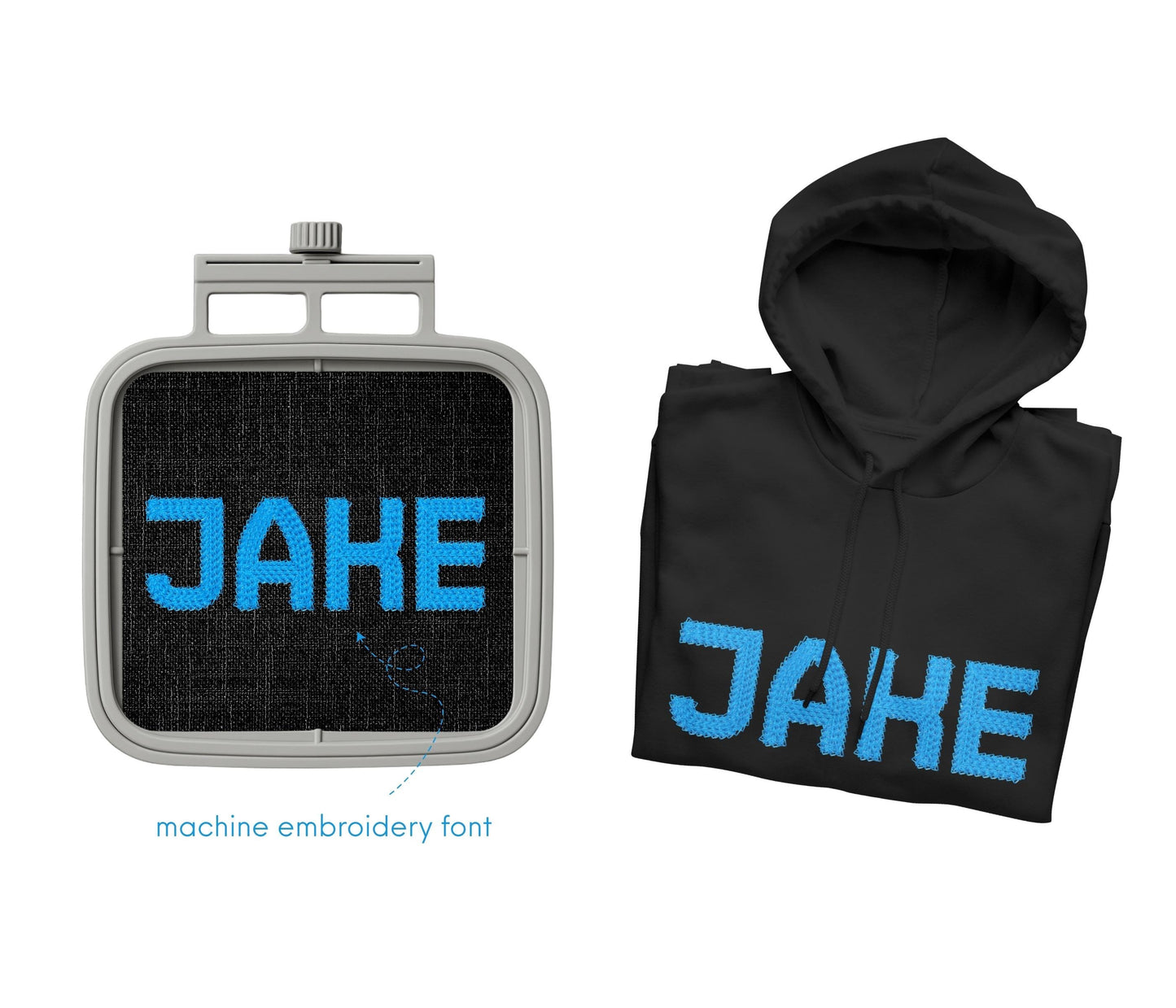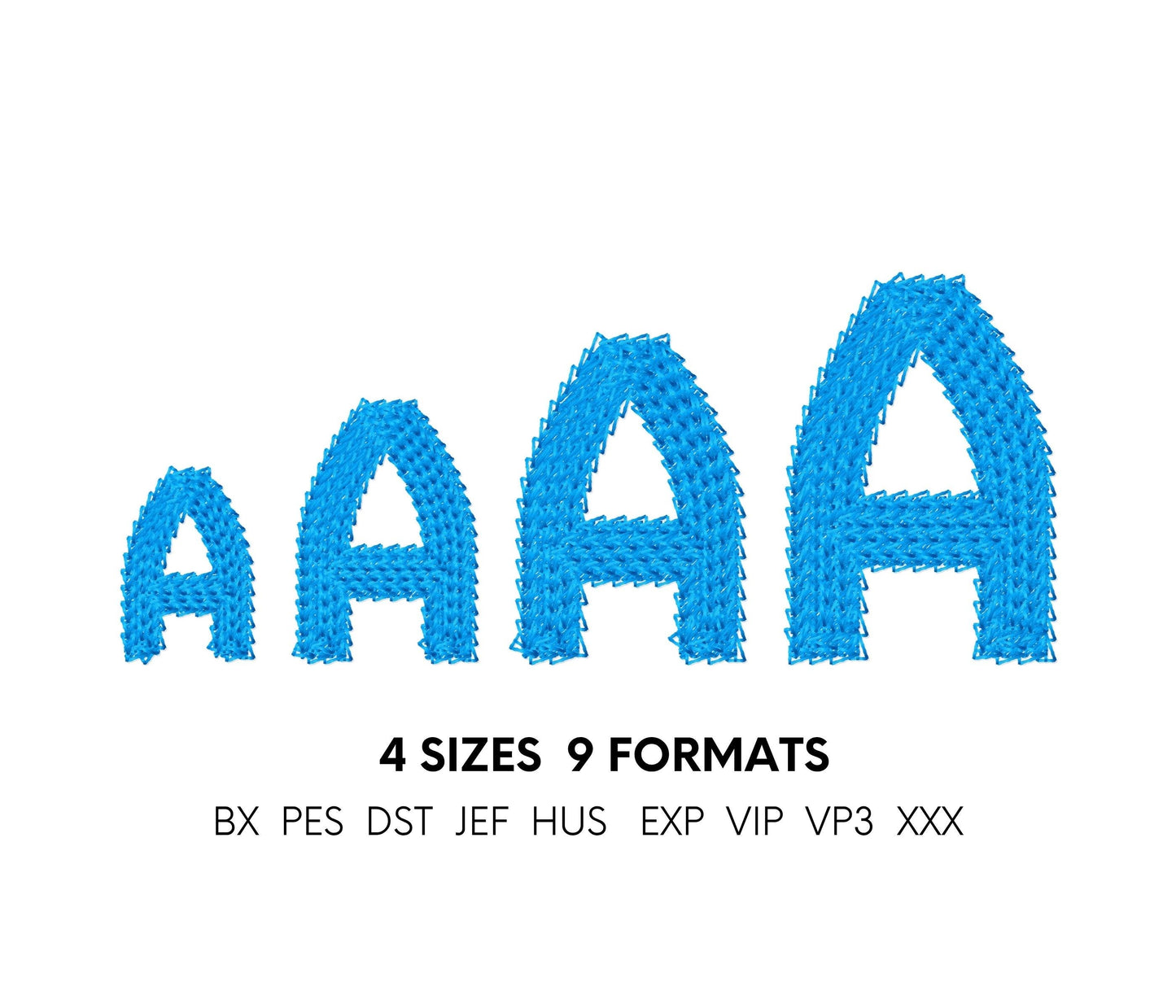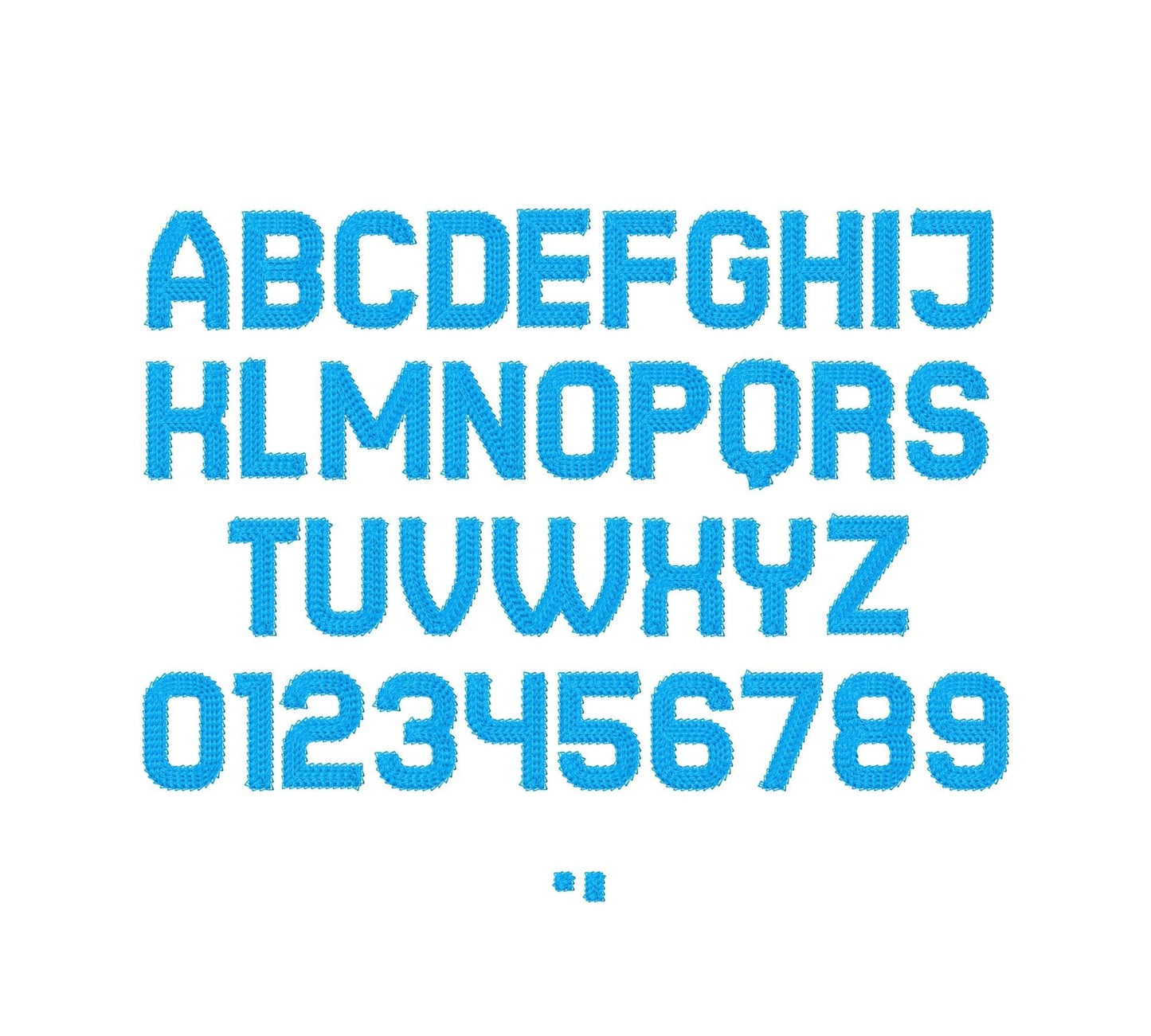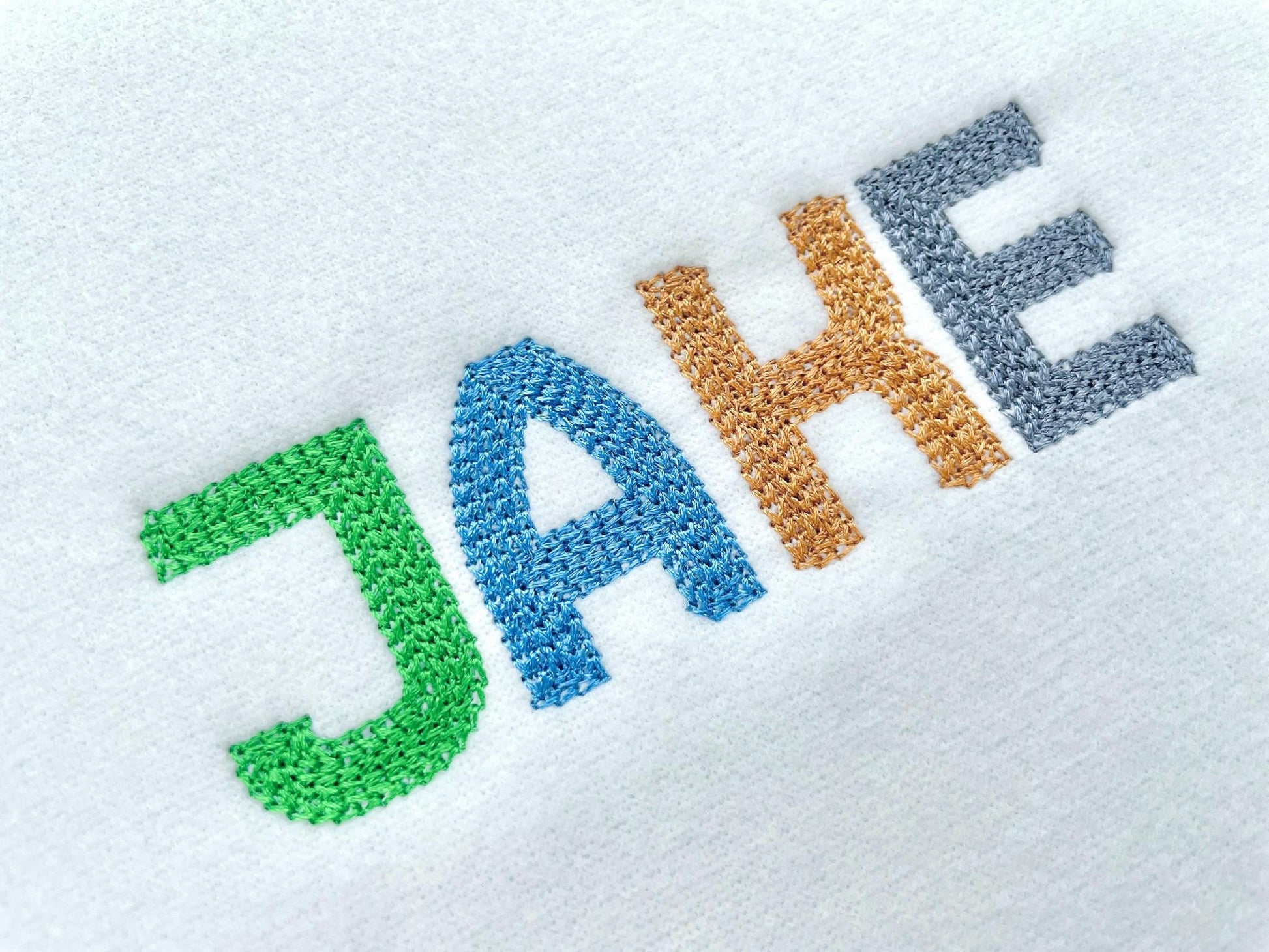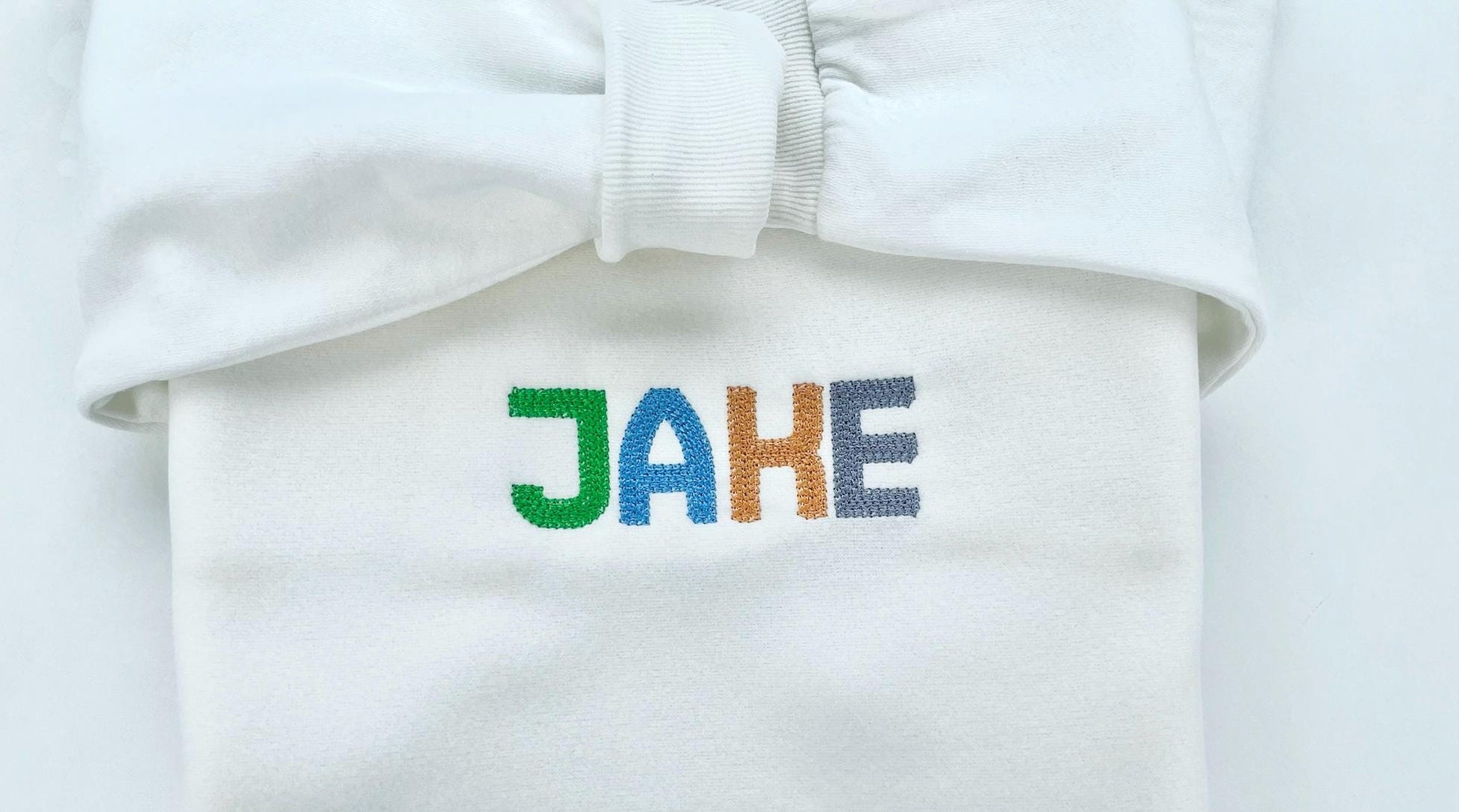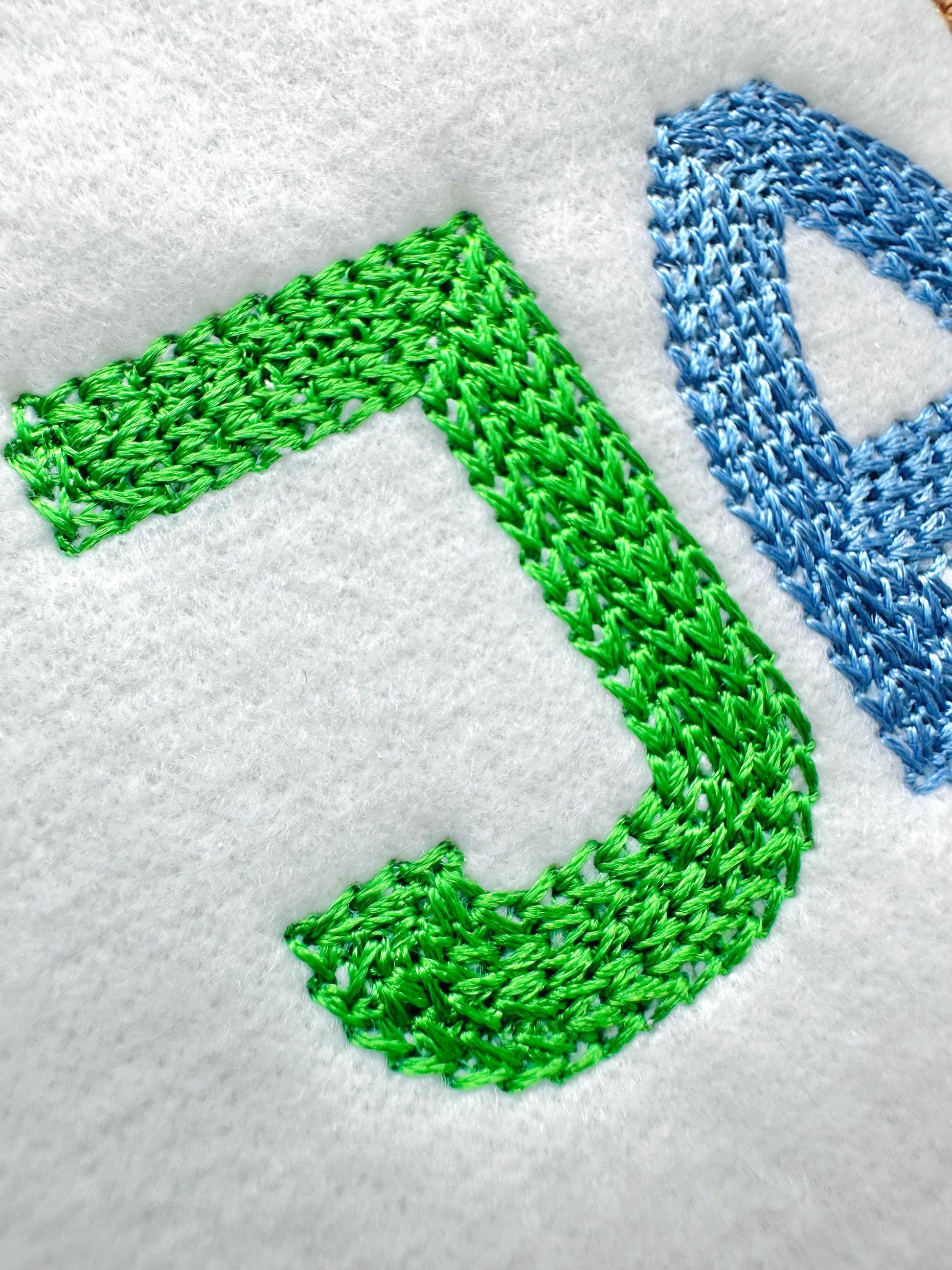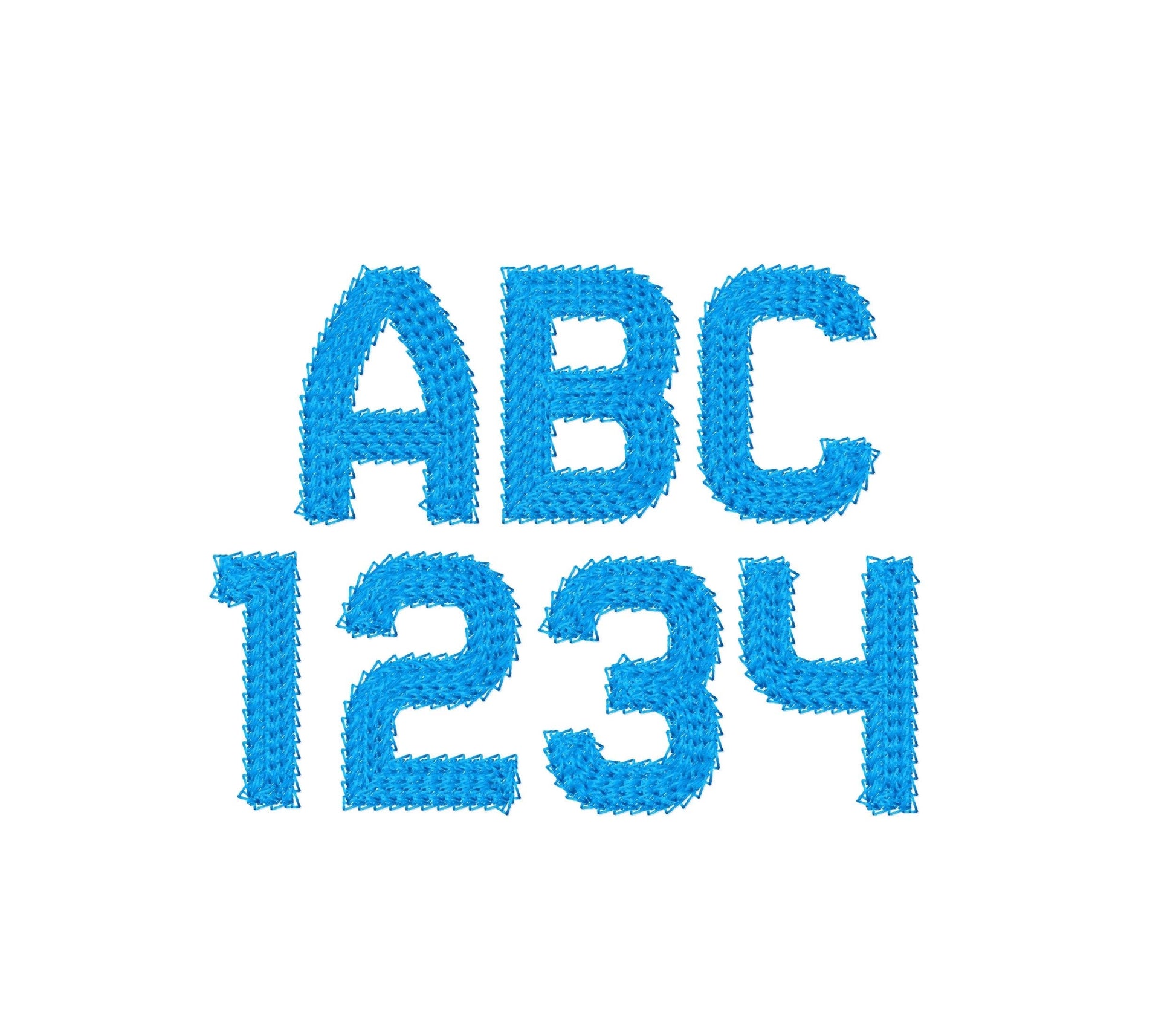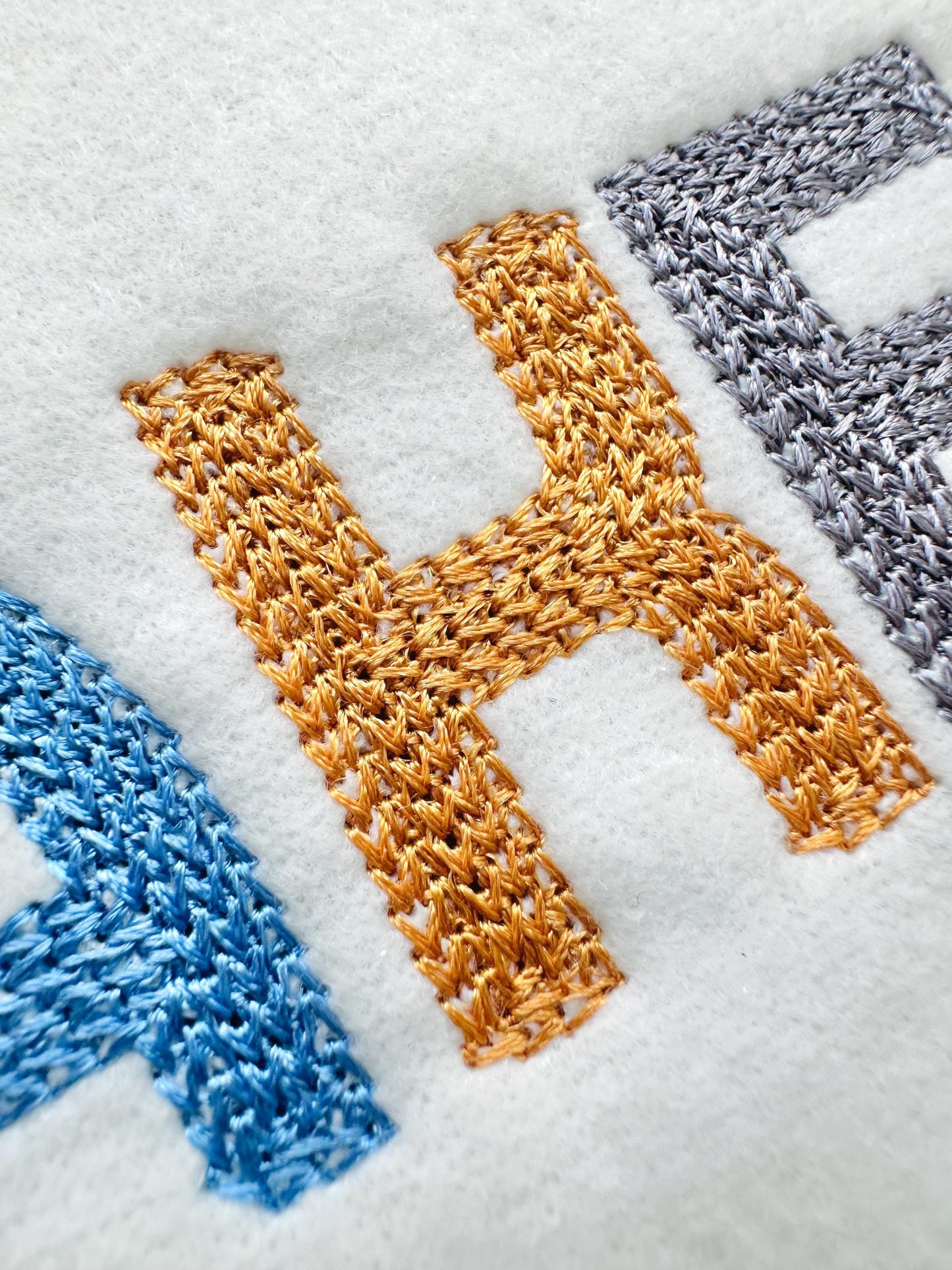
Light Fill Chain Block Font Hand Stitch Effect
Or click to open the linkA mini chain block font with a light fill and a hand-stitched look. Cute for kids' names, sleeves and labels.
Uppercase letters A to Z, numbers 0 to 9, comma and period, in four sizes: 1.2, 1.6, 2 and 2.3 inches.
- Light fill chain block font, hand stitch look
- Uppercase A-Z, numbers 0-9, comma, period
- 4 sizes, 1.2 to 2.3 in